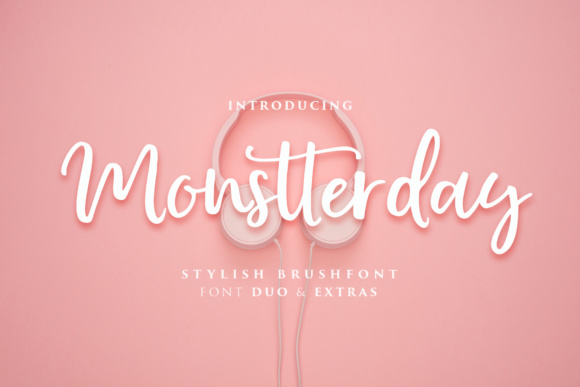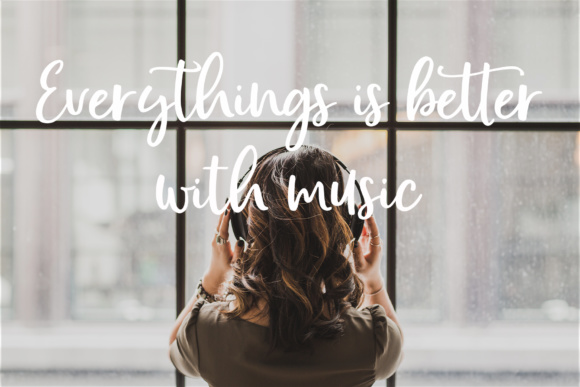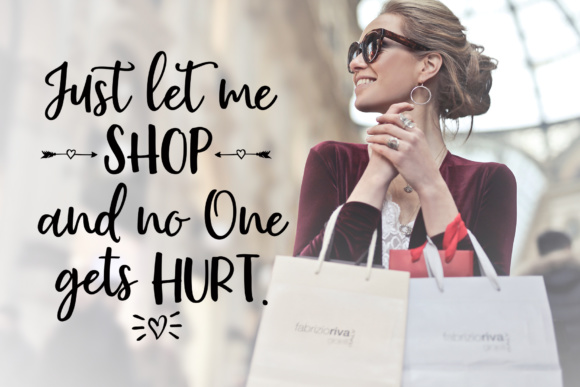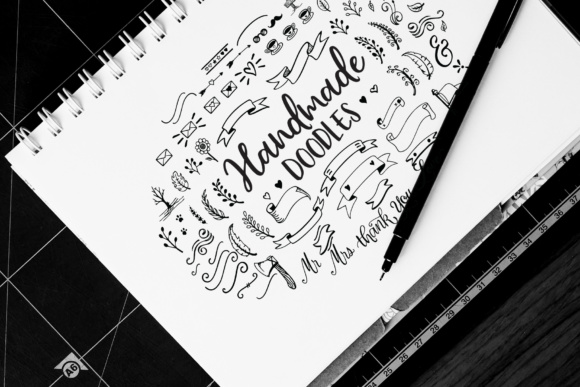
Monstterday Script Font
About Monstterday Script Font
Monstterday Script is a handwritten, stylish copperplate font. Monstterday has a dancing baseline and will give your design a classic and elegant touch. Monstterday can be used for various purposes such as headings, signatures, logos, wedding invitations, t-shirts, letterheads and much more!